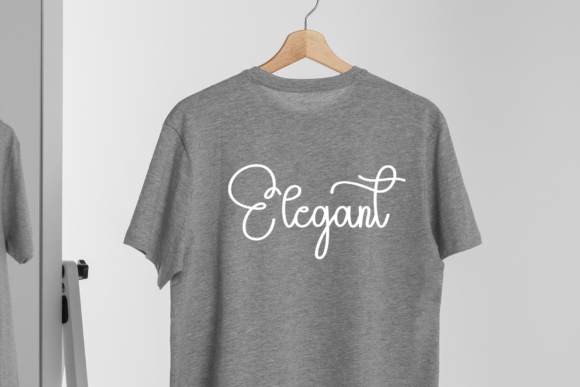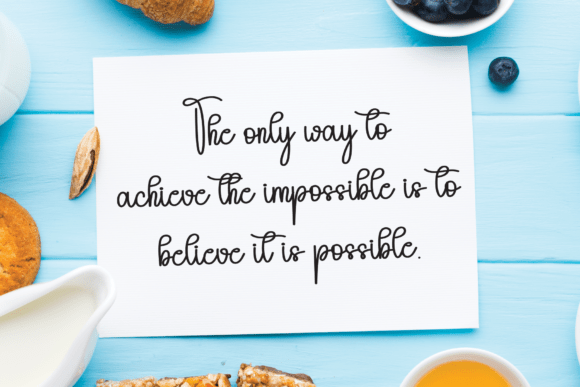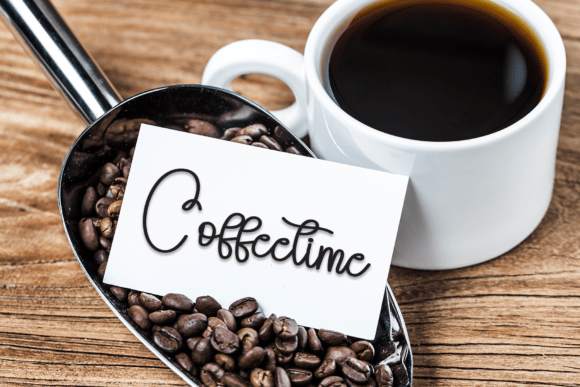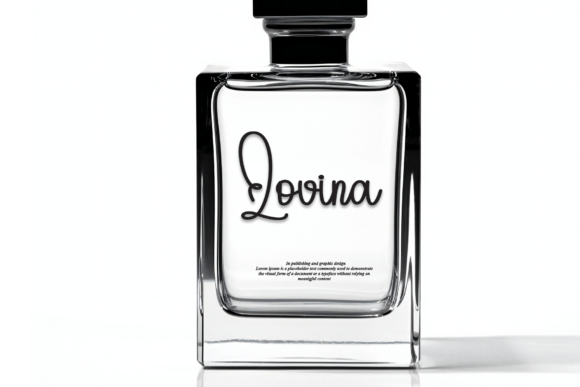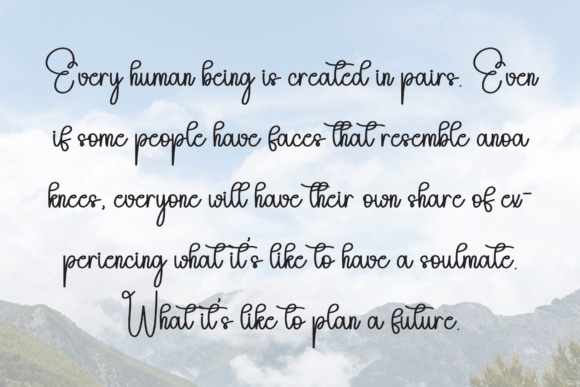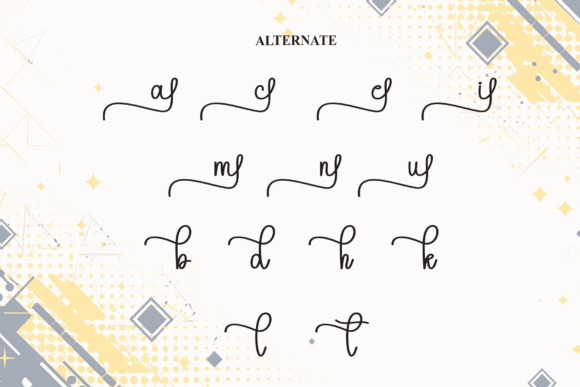
Experience the Height of Elegance with Backline Font
In the world of typography, few fonts manage to convey the essence of luxury and sophistication as effortlessly as the Backline font. This modern handwritten and luxury typeface is a masterpiece of design, tailored for those who seek to infuse their creative projects with a refined, signature-style aesthetic. With its long, sweeping descenders and delicate, looped flourishes, Backline exudes a sense of high-end craftsmanship that is sure to elevate any design it touches.
The Ultimate Tool for Sophisticated Storytelling
Backline font is more than just a typeface; it’s a storytelling tool designed to bring a touch of elegance and prestige to your most important creative projects. Whether you’re working on luxury wedding stationery, premium product labels, or high-fashion editorial layouts, Backline provides the perfect blend of sophistication and style. Its unique design elements are carefully crafted to convey a sense of motion and fluidity, making it ideal for designers who want to create a lasting impression.
Key Features of Backline Font
- Modern Handwritten Style: Backline boasts a contemporary handwritten look that feels both personal and luxurious.
- Luxury Typeface: Designed with high-end projects in mind, Backline brings a level of sophistication that’s hard to match.
- Long Sweeping Descenders: These add a graceful motion to your text, making it stand out with elegance.
- Delicate Looped Flourishes: Each character is adorned with delicate flourishes that enhance its luxurious feel.
The versatility of Backline font makes it suitable for a wide range of applications. Here are some of the ideal uses for this elegant typeface:
- Luxury Wedding Stationery: Add a touch of class and sophistication to wedding invitations, menus, and other stationery.
- Premium Product Labels: Elevate your brand with labels that exude luxury and quality.
- High-Fashion Editorial Layouts: Stand out in the fashion world with editorial layouts that showcase style and elegance.
- Branding and Packaging: For brands that want to convey a sense of luxury and high quality, Backline is an excellent choice.
Why Choose Backline Font?
In a sea of typefaces, Backline stands out for several reasons:
- Unique Aesthetic: Its combination of modern handwritten style with luxurious flourishes is unmatched.
- Versatility: Suitable for a wide range of projects, from wedding stationery to high-fashion editorials.
- High-End Quality: Backline is designed to bring a sense of craftsmanship and quality to your designs.
Backline font is a game-changer for designers and crafters who aim to infuse their projects with a sense of luxury and sophistication. Its elegant design, combined with practical features like PUA encoding, makes it an indispensable tool in your typography arsenal. Whether you’re aiming to create stunning wedding stationery, premium product labels, or high-fashion editorial layouts, Backline provides the perfect blend of style and elegance. Experience the height of elegance with Backline font and take your designs to new heights of sophistication and refinement.